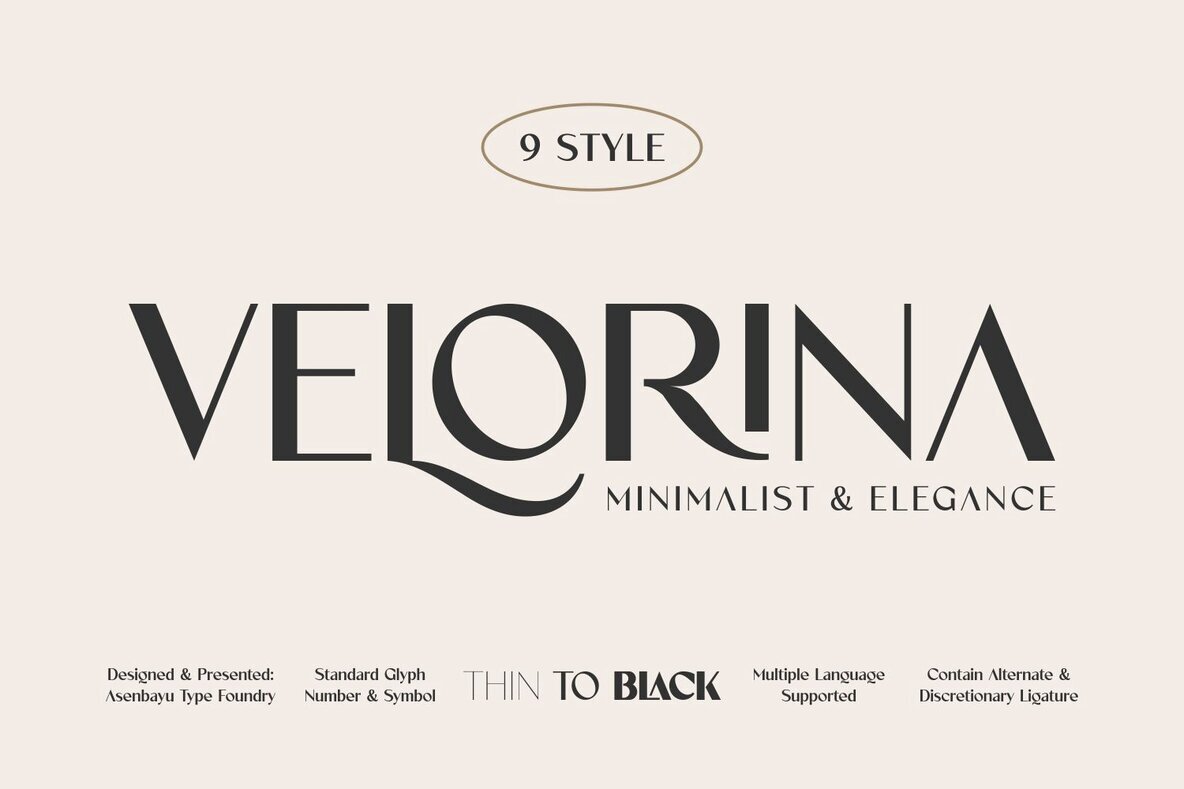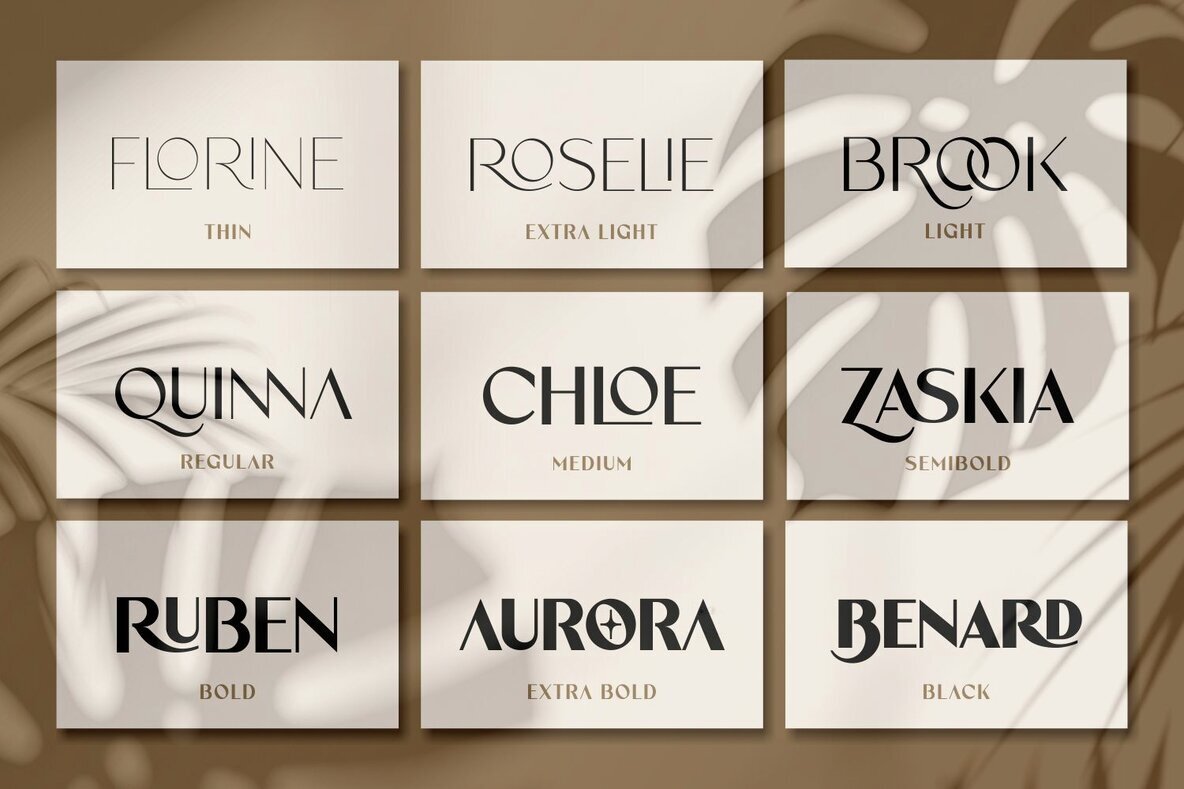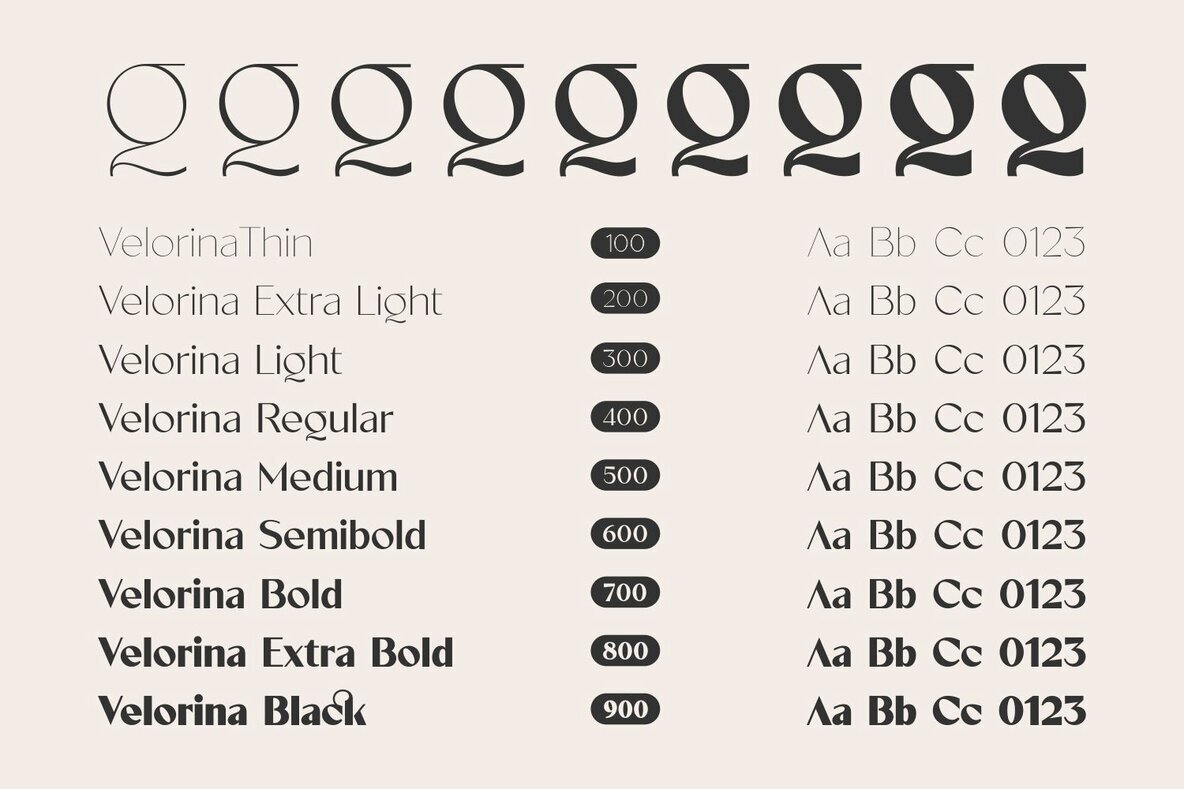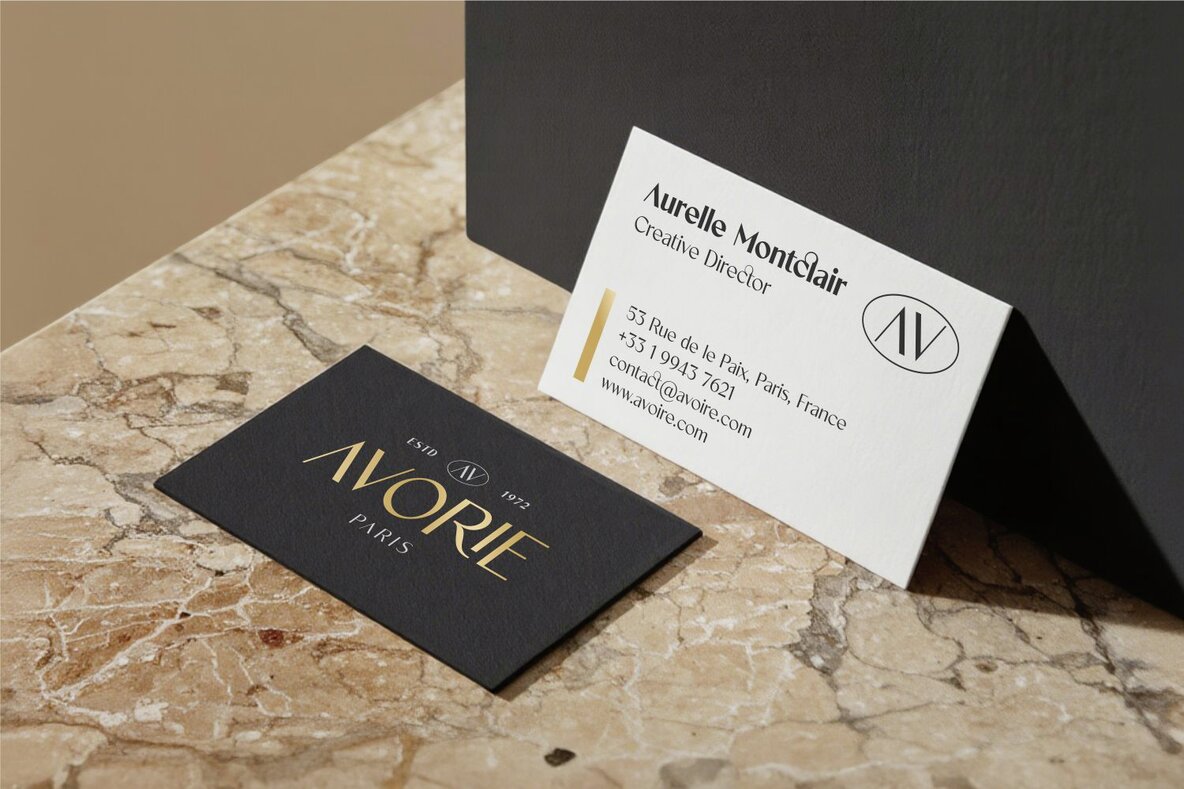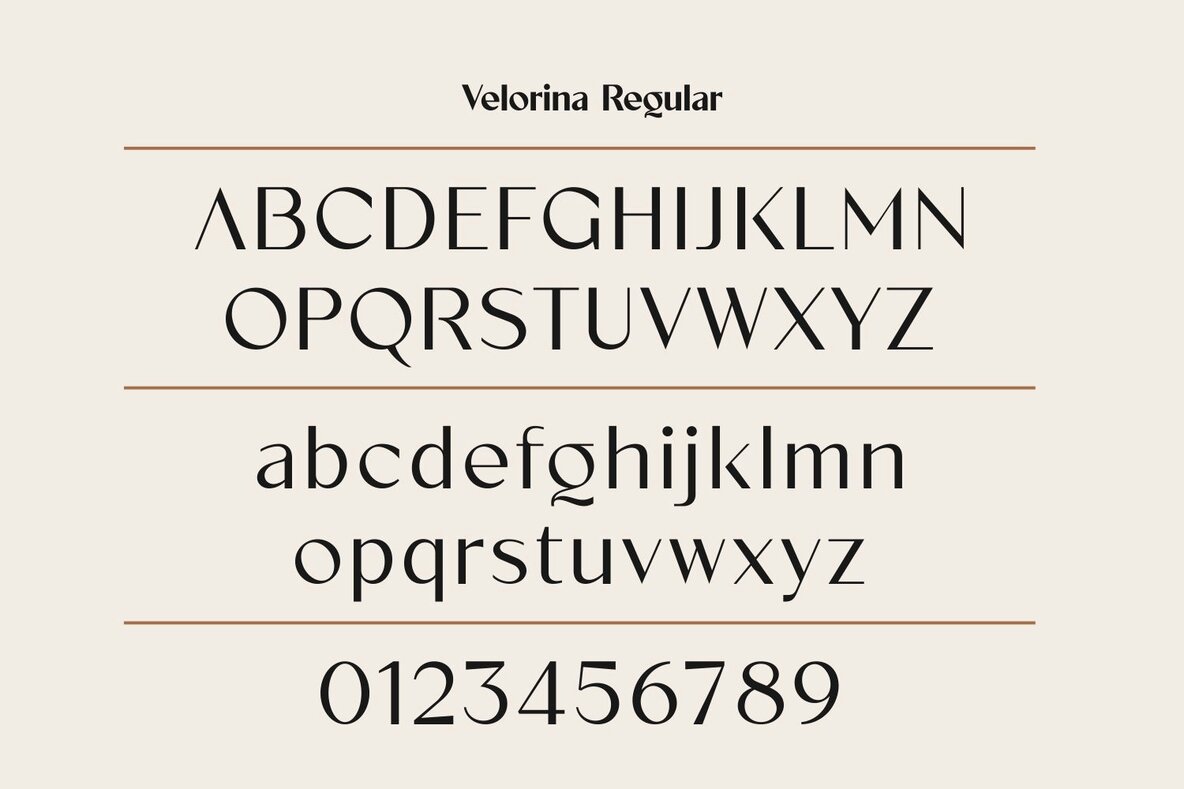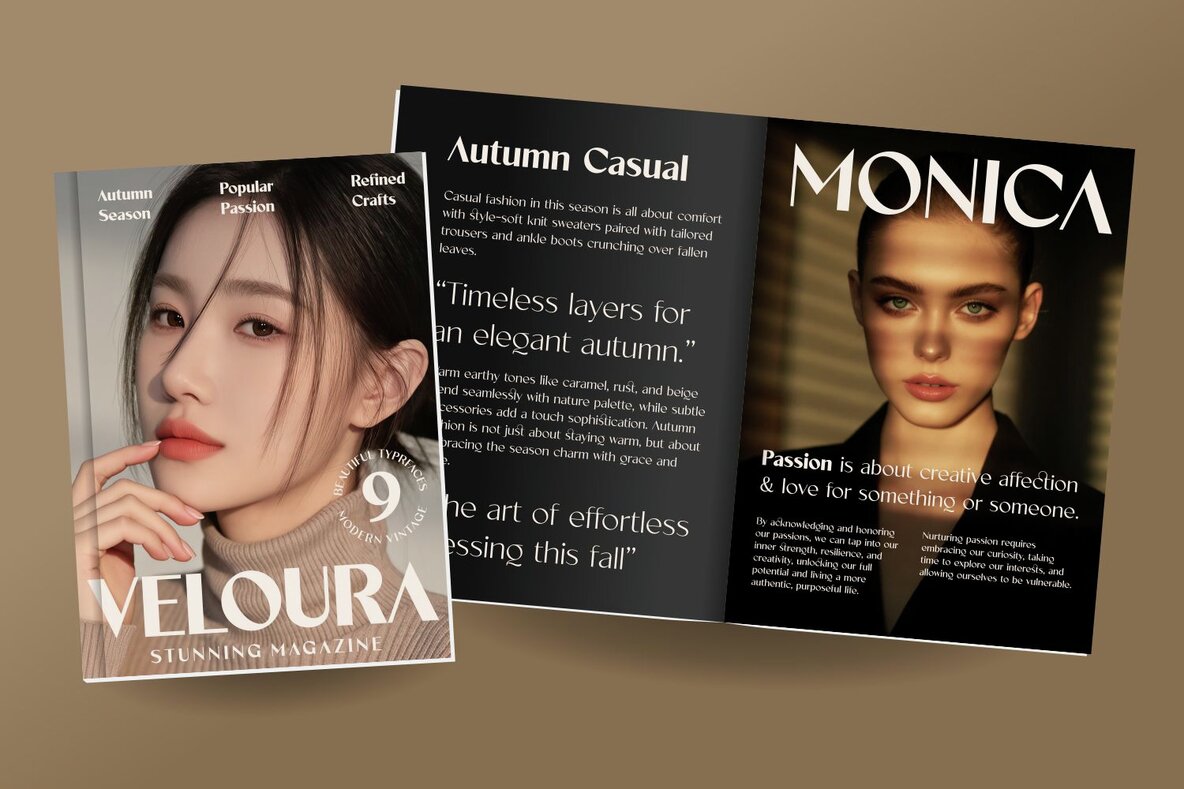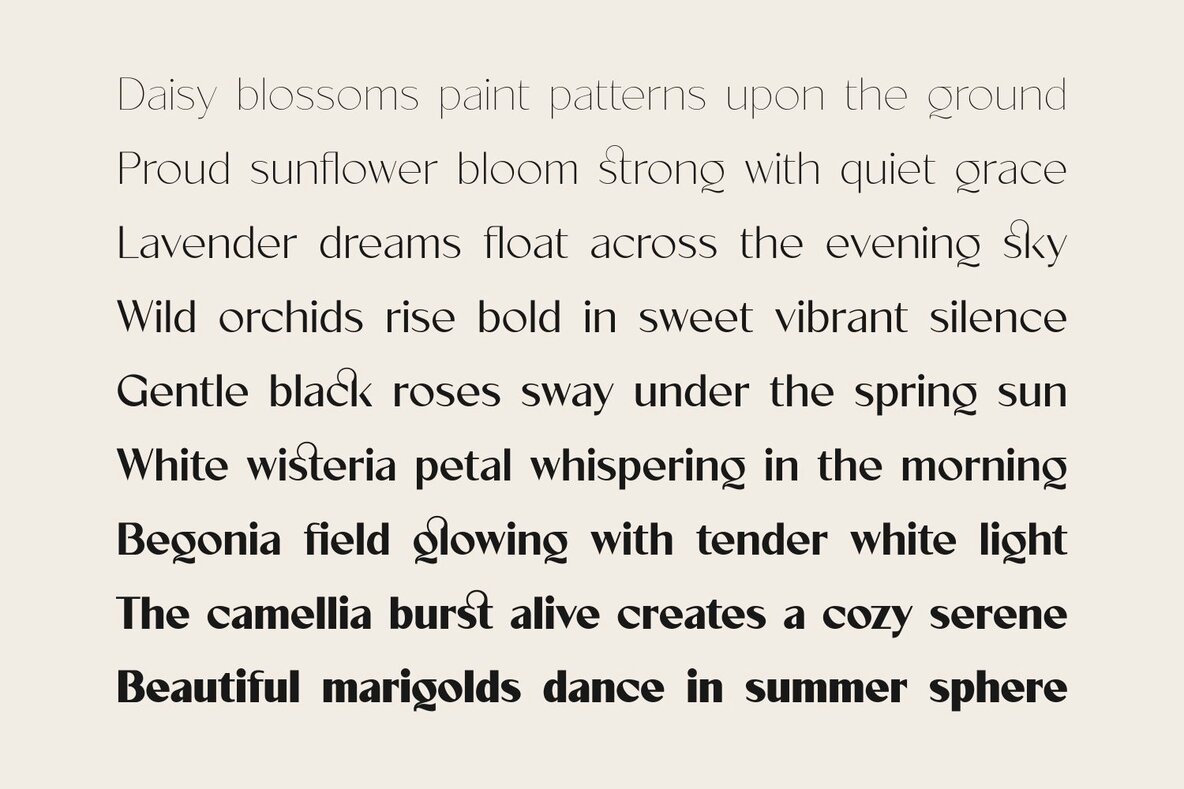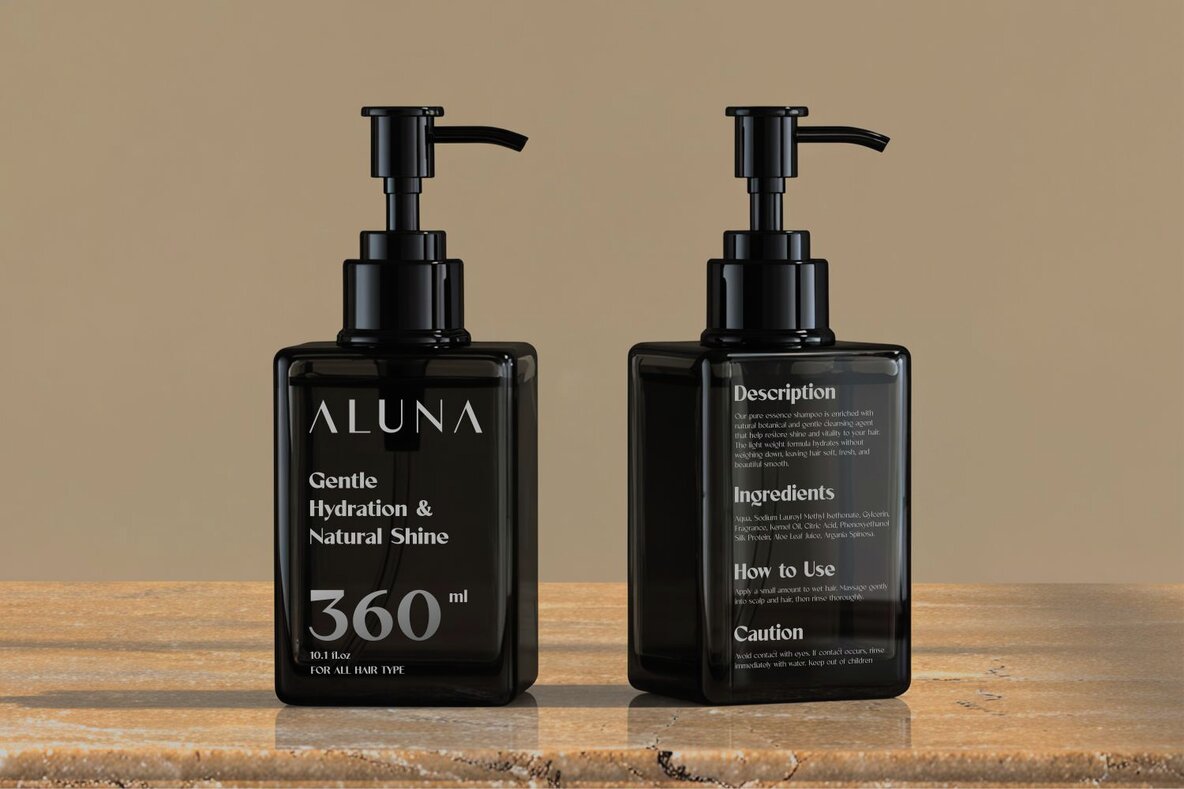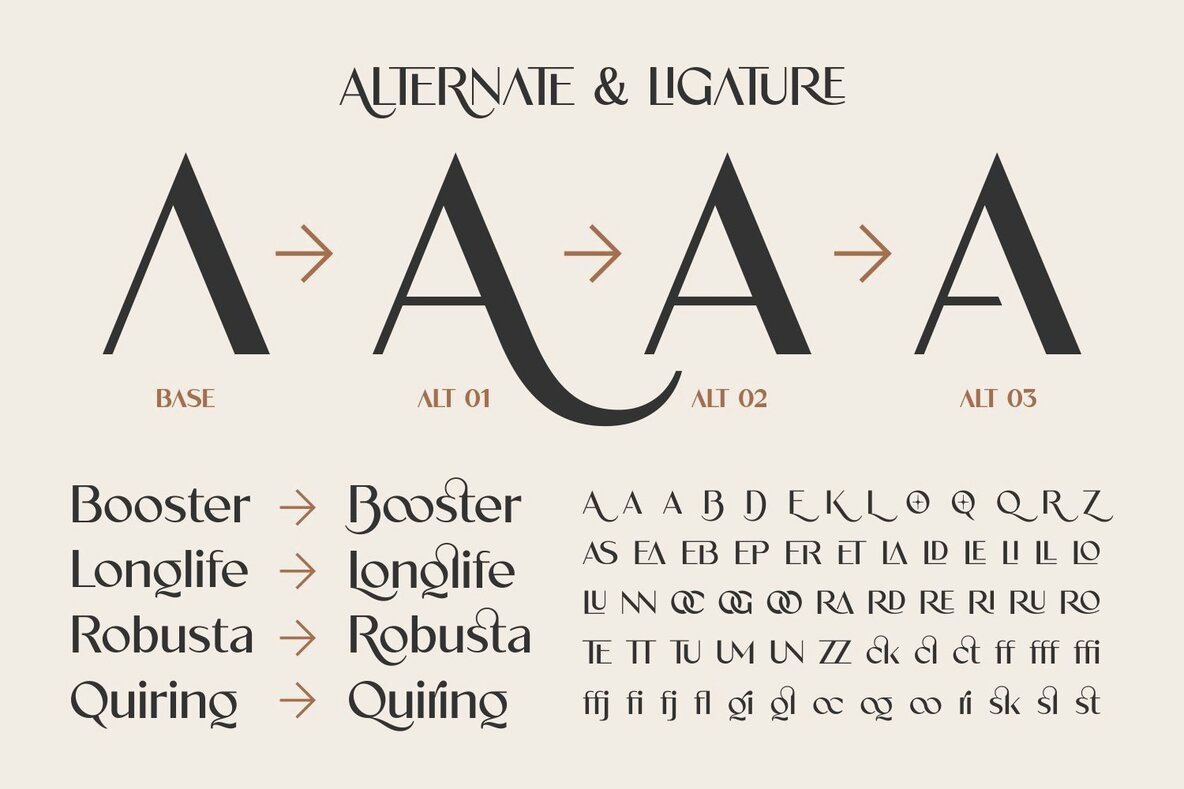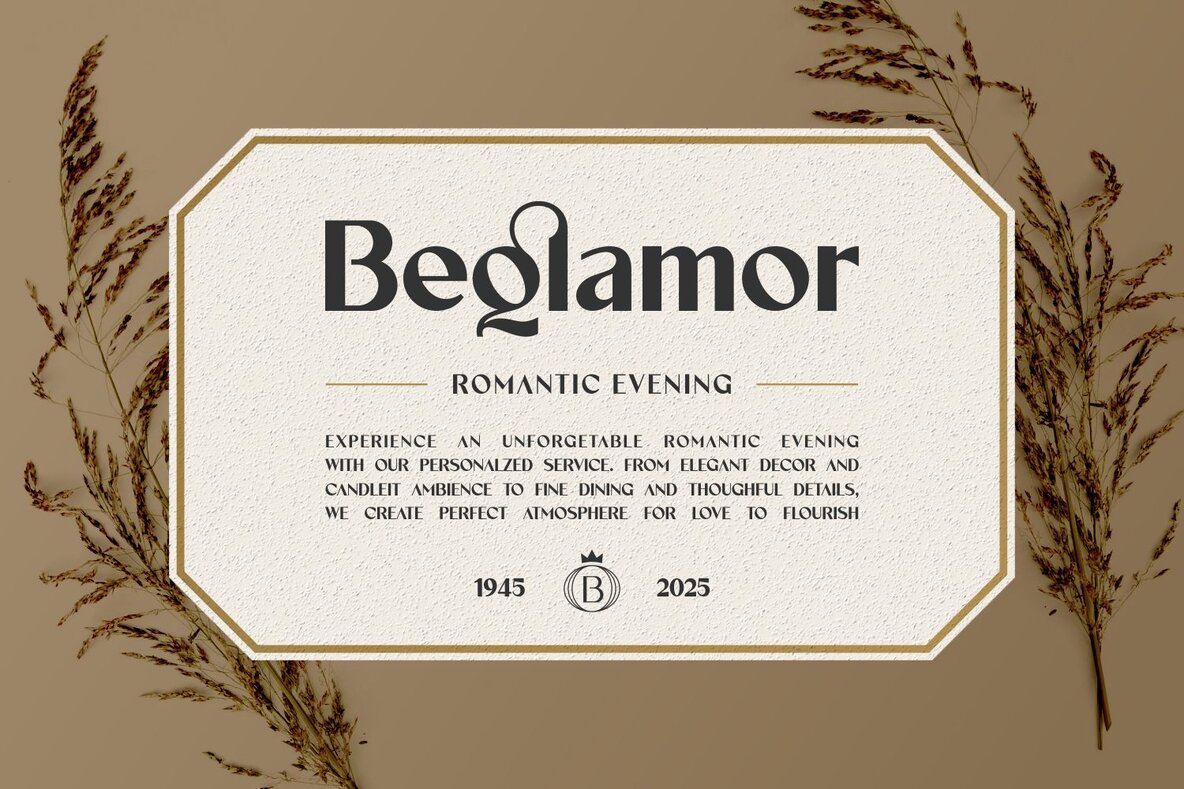
Velorina Font
Velorina font family captures a sophisticated modernity through its precisely crafted geometry and understated elegance. Spanning nine diverse weights from thin to black, it accommodates intricate designs with its delicate strokes while making a bold statement with its heavier forms. Though primarily a sans serif, its design nods to serif influences, creating a unique character that seamlessly combines minimalism with enduring grace. Ideal for branding, logos, editorial layouts, and web interfaces, this typeface offers a versatile elegance to enrich any creative project.Velorina: Harmoniously Balanced Typography